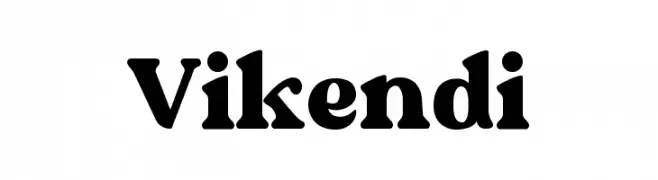
A bold, slab serif font with high contrast and strong vertical emphasis.
An elegant script font with flowing, cursive style and intricate flourishes.
A playful, bold font with rounded edges and a hand-drawn feel.
A classic serif font with bold strokes and medium contrast, ideal for traditional and authoritative designs.
An elegant script font with intricate loops and flowing connections.
A modern sans-serif font with a semi-bold weight, offering clarity and versatility.
A thin, modern font with clean lines and elegant simplicity.
A bold serif font with strong, authoritative strokes and classic appeal.